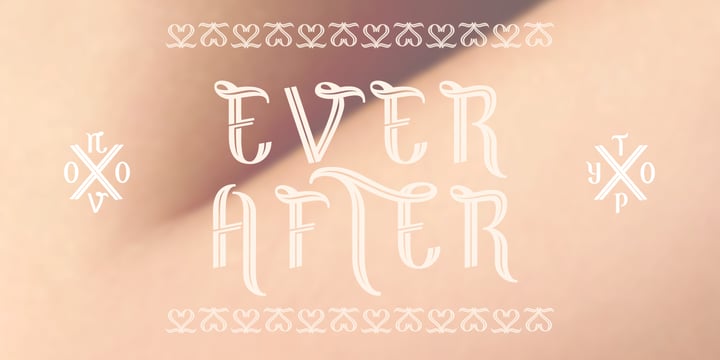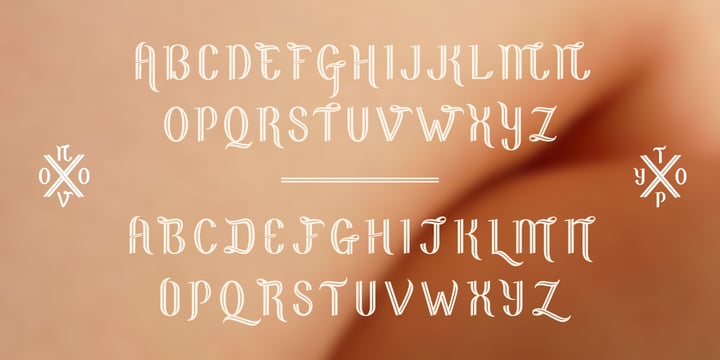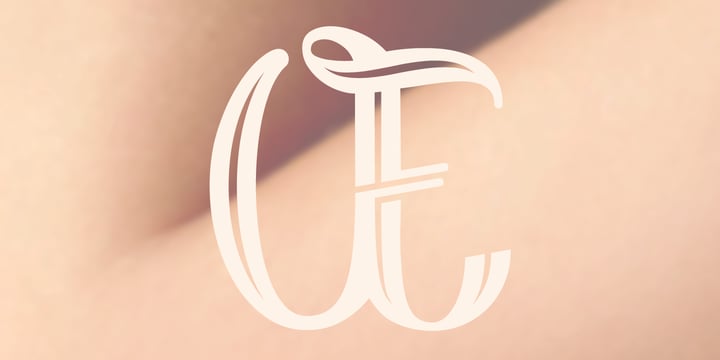
NT Fest
by Novo Typo
NT Fest Font Family was designed by Mark van Wageningen and published by Novo Typo. NT Fest contains 1 styles.
About NT Fest Font Family
Fest is a highly detailed, ornamental unicase typeface for display use. Designed by Novo Typo - (typo)graphic designers from Amsterdam - The Netherlands. Fest is perfect for designing sophisticated logos, fashionable headings or other beautiful display typography. The glyph set of Fest contains a lot of extra elegant glyphs, swooshes and ligatures.
Designers: Mark van Wageningen
Publisher: Novo Typo
Foundry: Novo Typo
Design Owner: Novo Typo
About Novo Typo